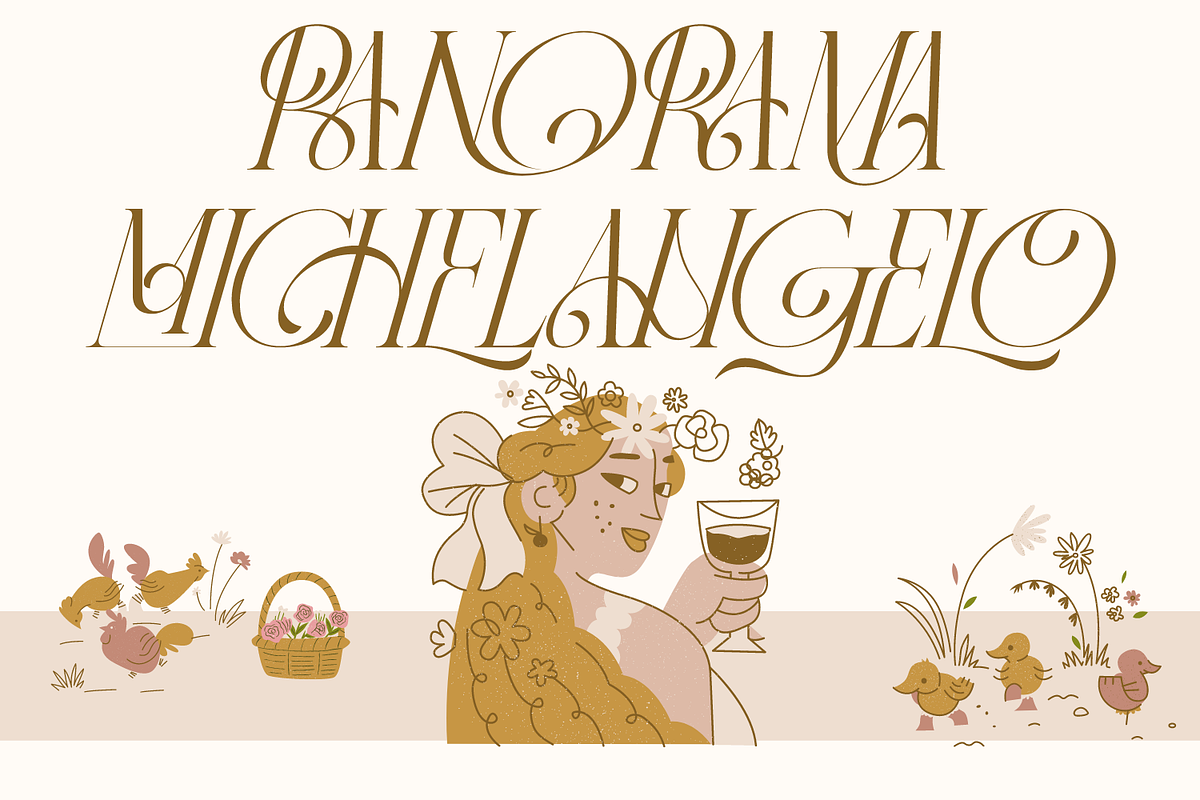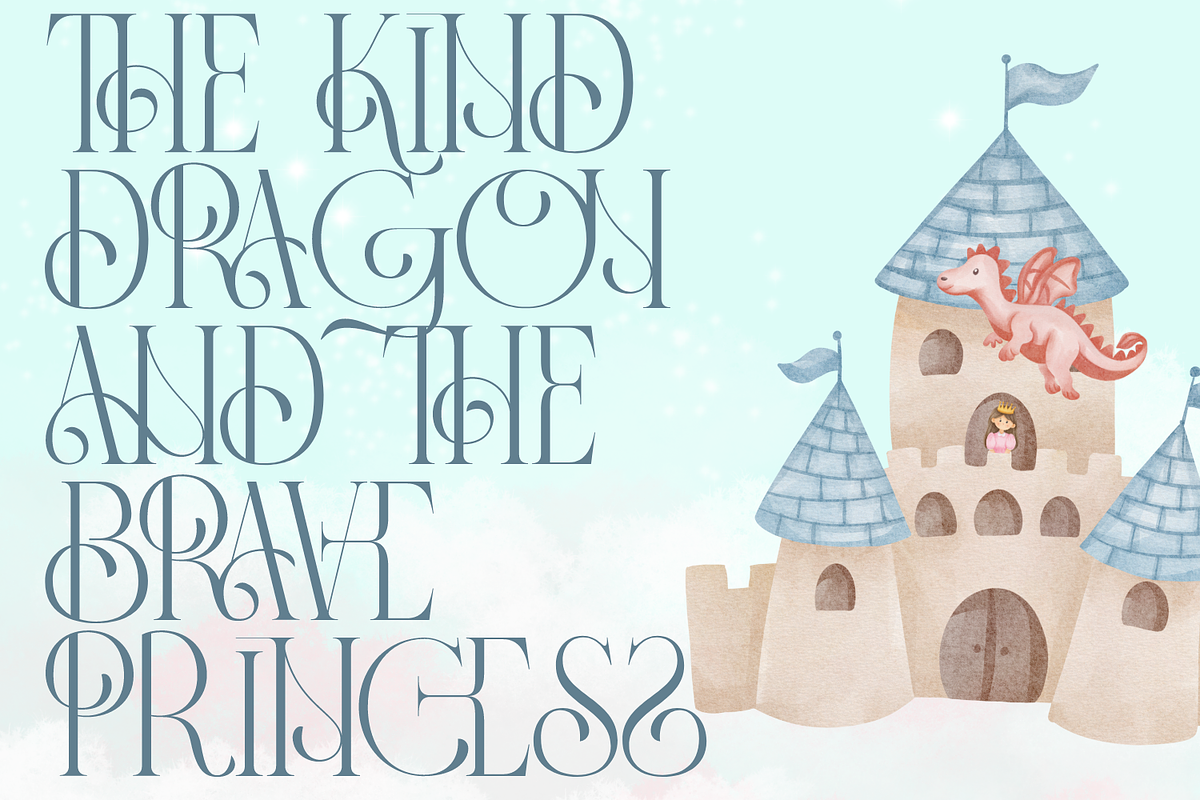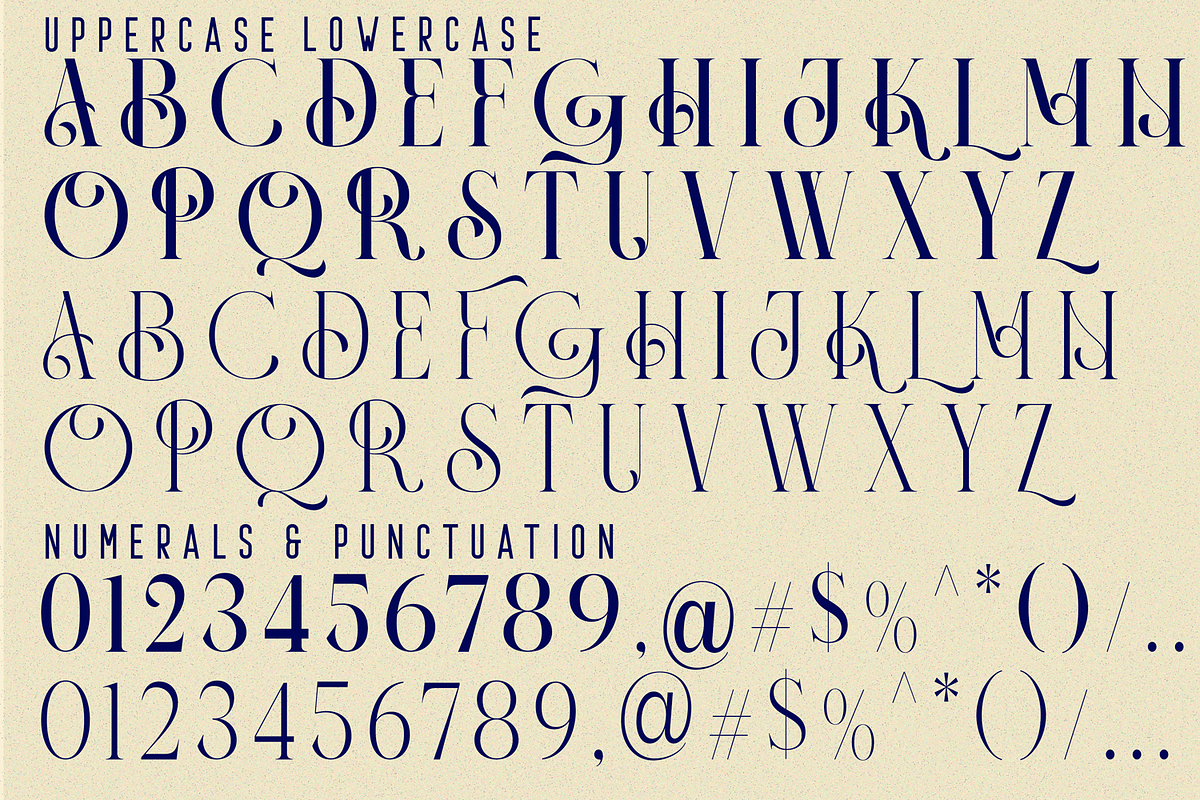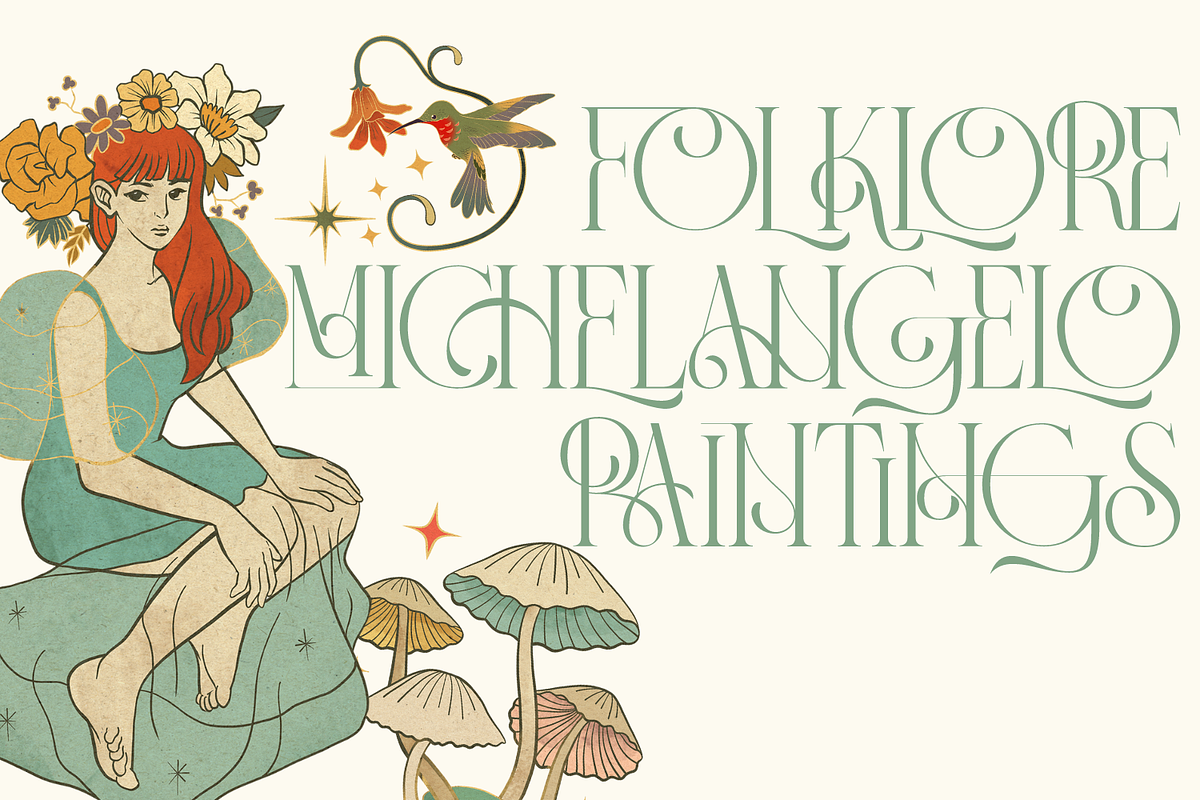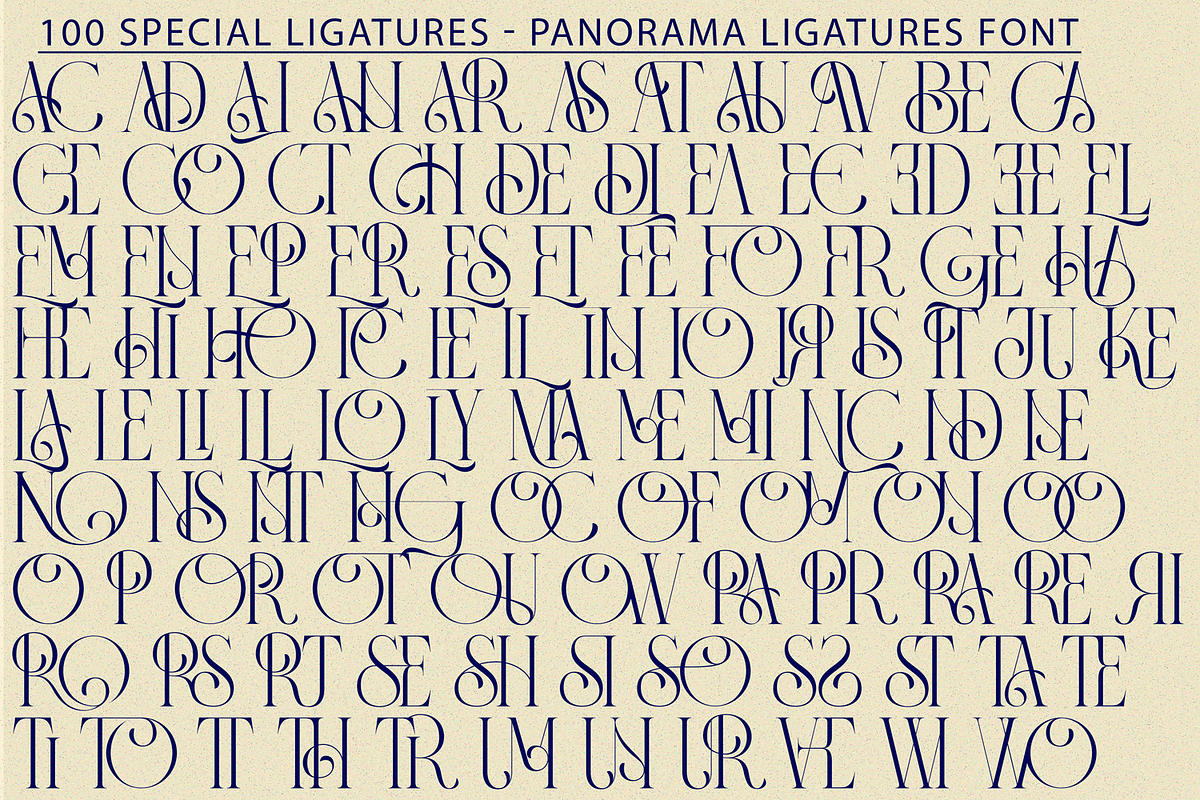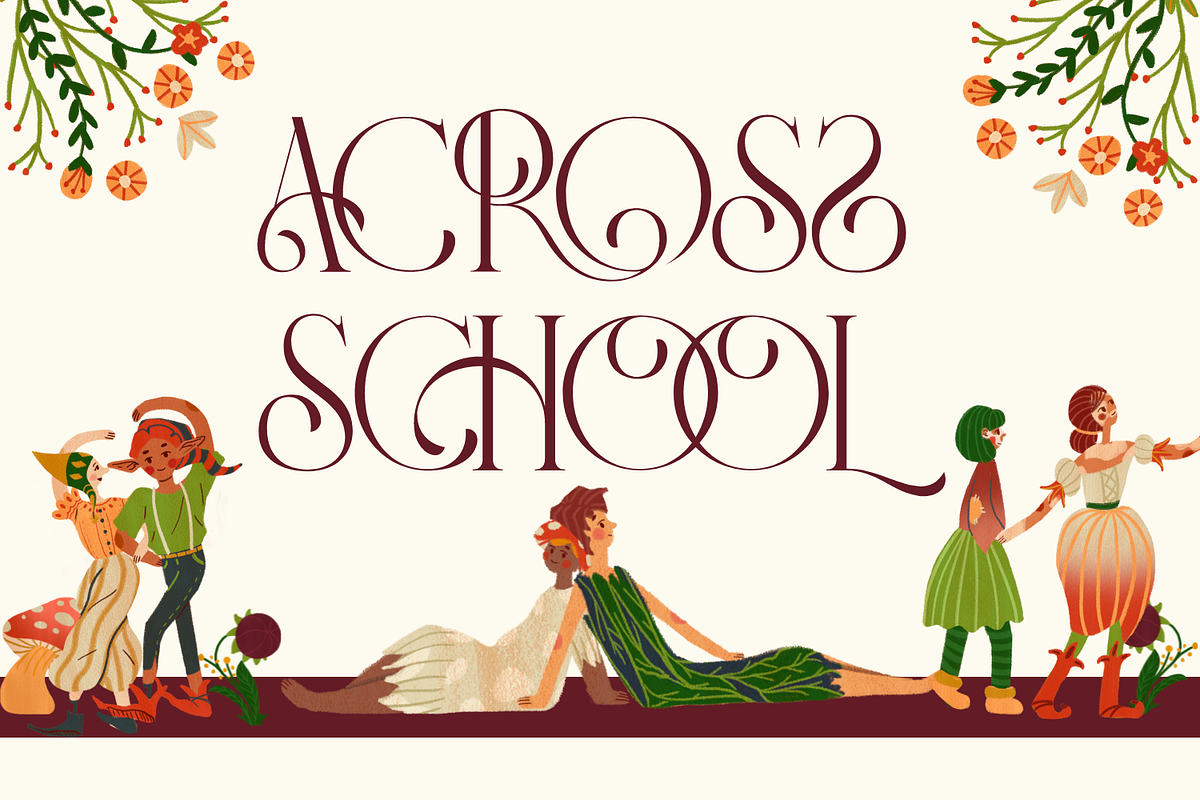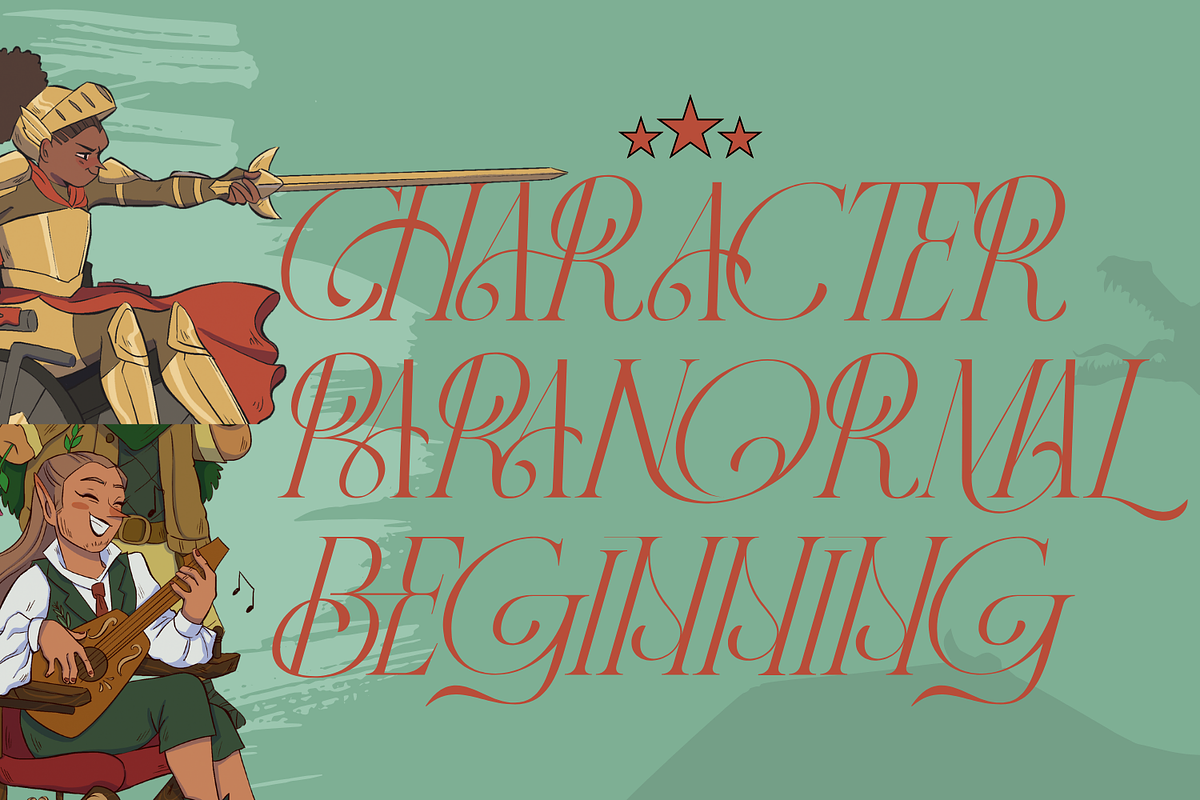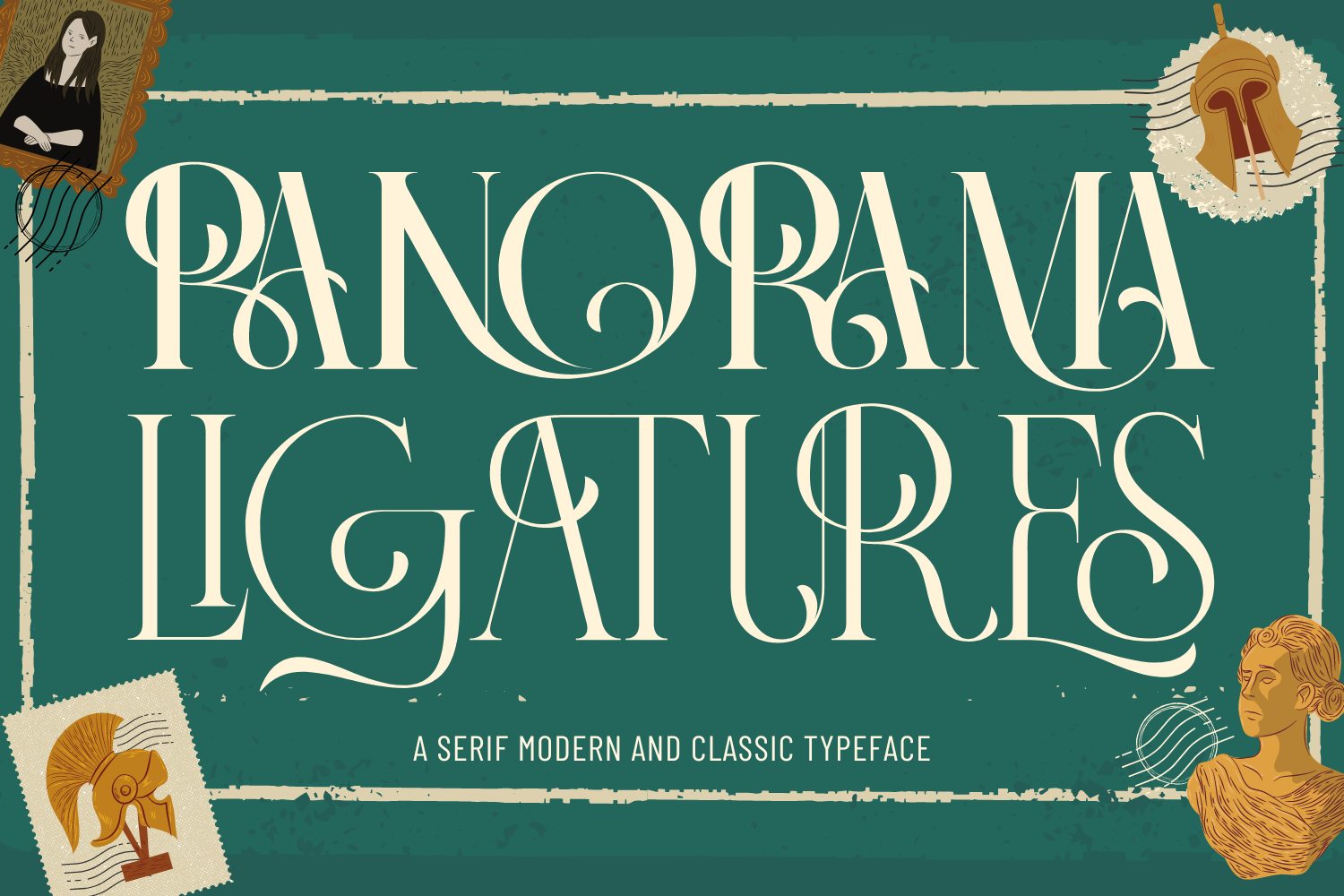
Panorama Ligatures Font
Panorama Ligatures Font is a font that combines modern with classic. Designed with balanced proportions and bold yet elegant lines, each letter displays impressive clarity and perfection, making it an ideal choice for projects that require boldness and firmness in every accent. You can use this font for any purpose, such as wedding invitation, book cover, poster, and any other project that need a typeface that have unique looks. This font also support multi language!
Panorama Ligatures was built with OpenType features and includes 100 ligatures, alternate, numbers, punctuation, and it also supports other languages.
AC AD AL AN AR AS AT AU AV BE CA CE CH CO CT DE DI EA EC ED EE EL EM EN EP ER ES ET FE FO FR GE HA HE HI HO IE IC IL IN IO IR IS IT JU KE LA LE LI LL LO LY MA ME MI NC ND NE NG NO NT NS OC OF OM ON OO OP OR OT OU OW PA PR RA RD RE RI RO RS RT SE SH SI SO SS ST TA TE TH TI TO TR TT UM UN UR VE WI WO
This font also included full set of:
- Uppercase letters
- Special Ligatures